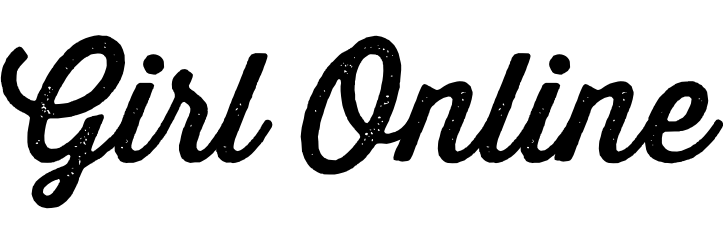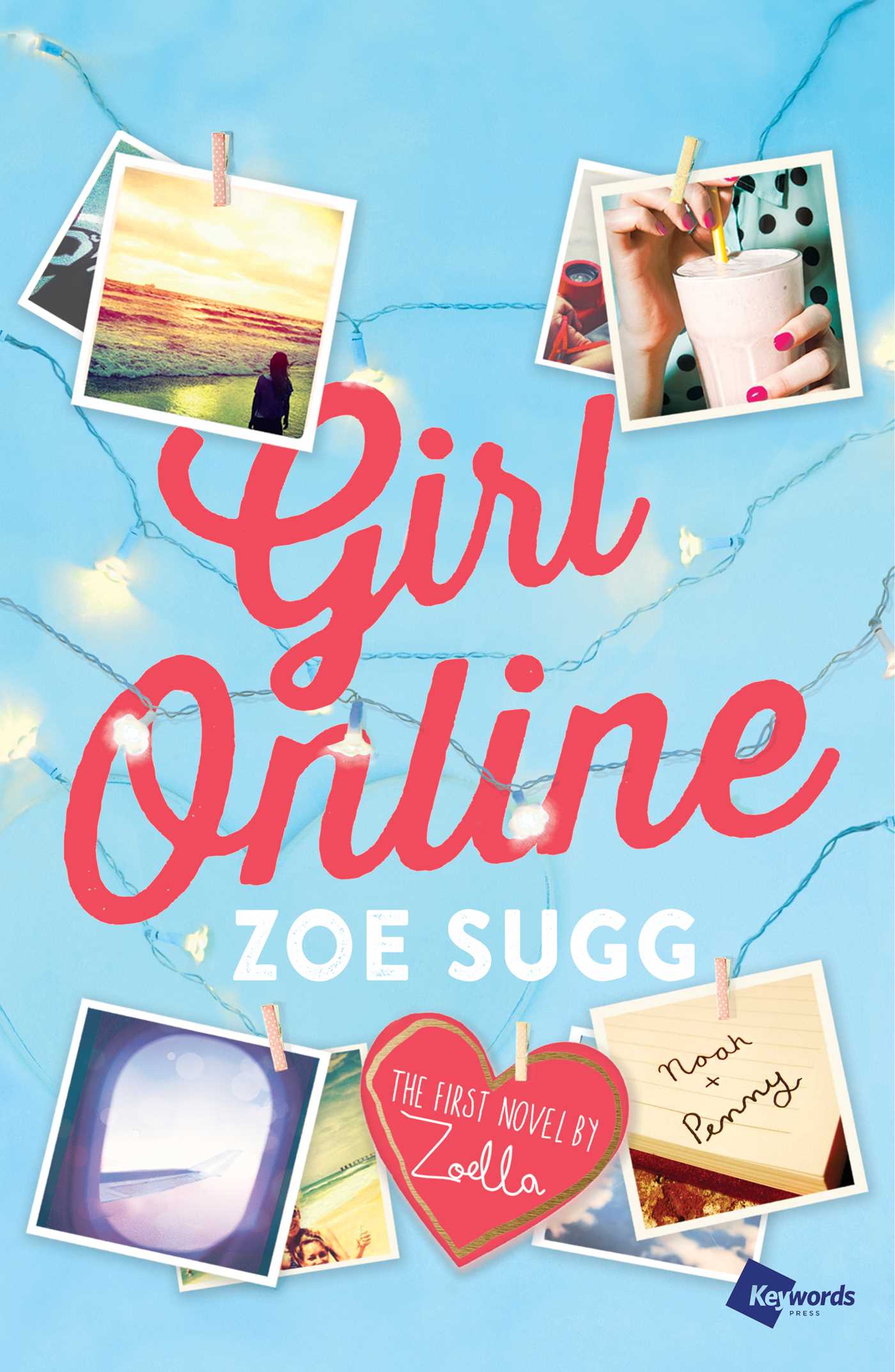
Girl Online Font
BookGirl Online is a young adult novel written by British author Zoe Sugg, also known by her online pseudonym "Zoella." It tells the story of Penny, a teenage blogger who goes viral after writing a blog called "Girl Online".
Thirsty Script Rough, a vintage script produced by Yellow Design Studio, is the warm, weathered version of Thirsty Script with texture and is the font used for the book's title lettering. The author's name is set in the sans serif typeface Brandon Printed One by HVD Fonts.